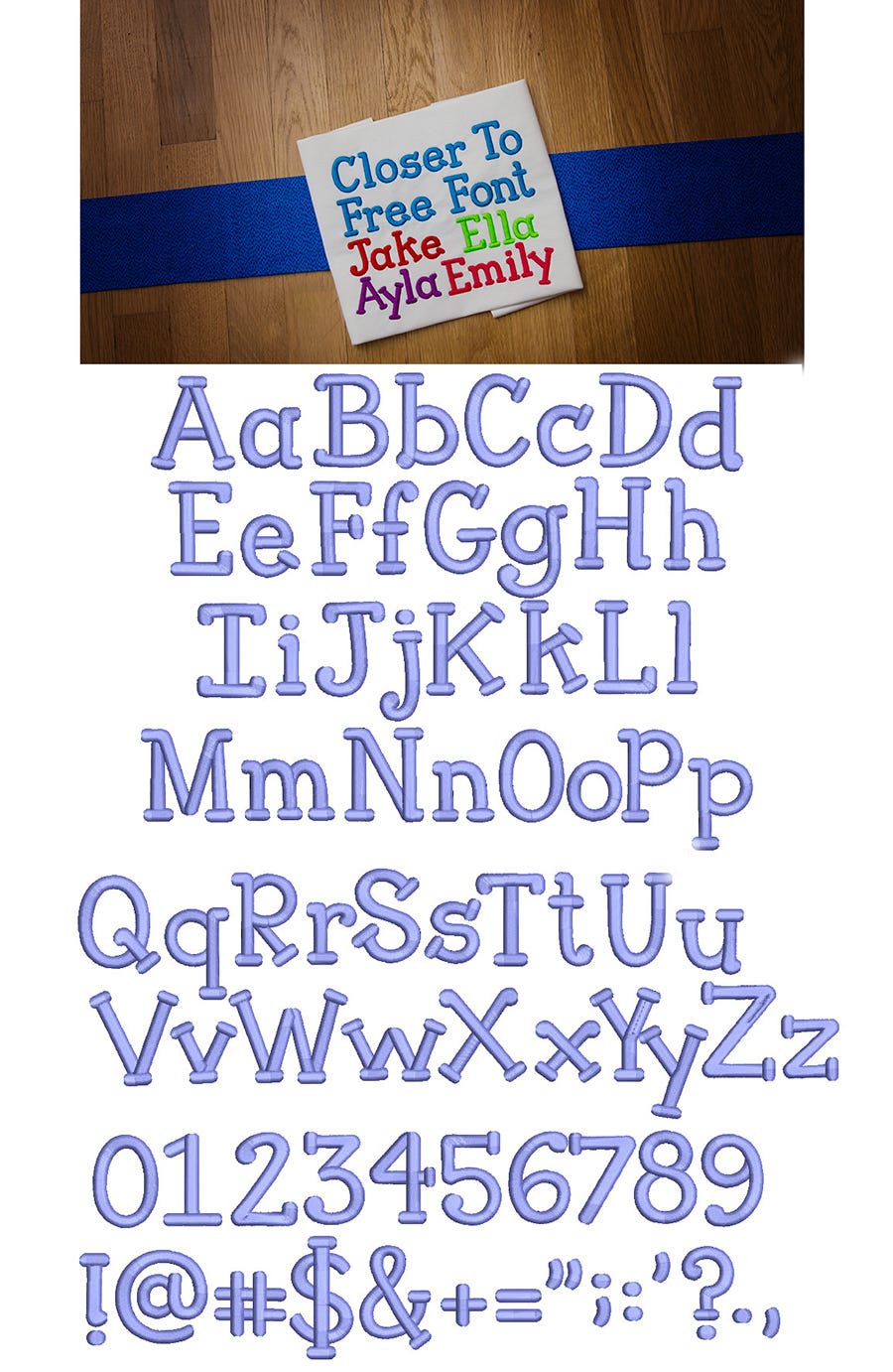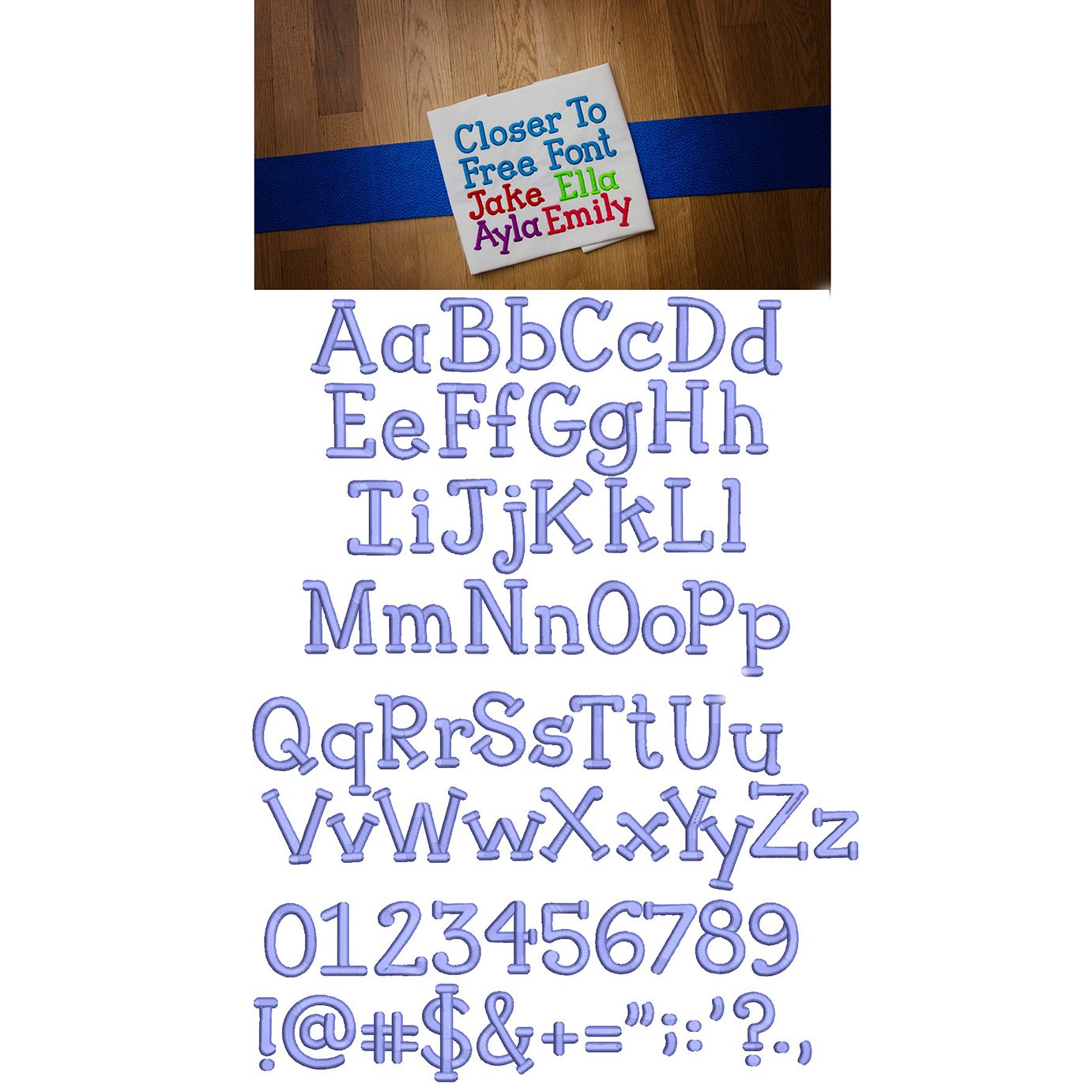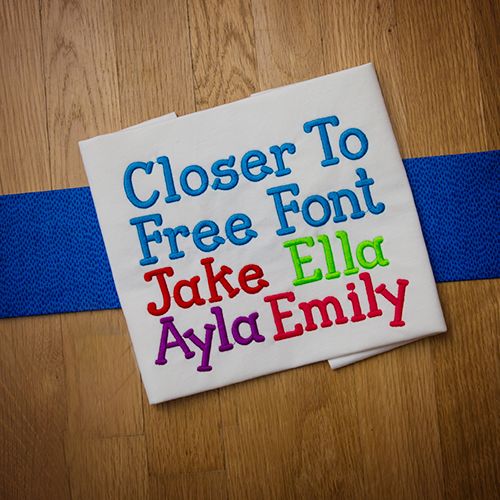
Closer To Free Satin Stitch Embroidery Font
Simple, cute, chunky...great for girls and boys! All of our fonts are 100% manually digitized to ensure the highest quality.